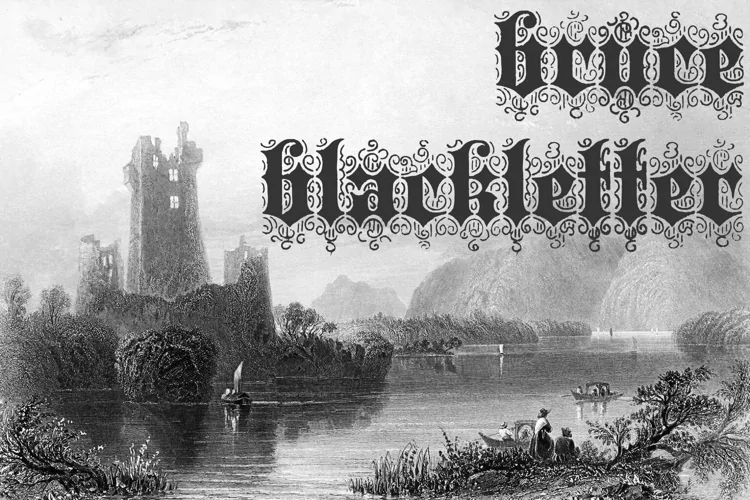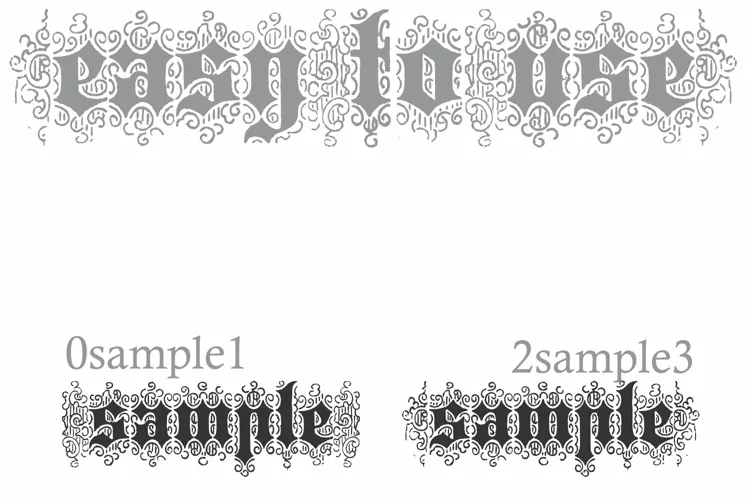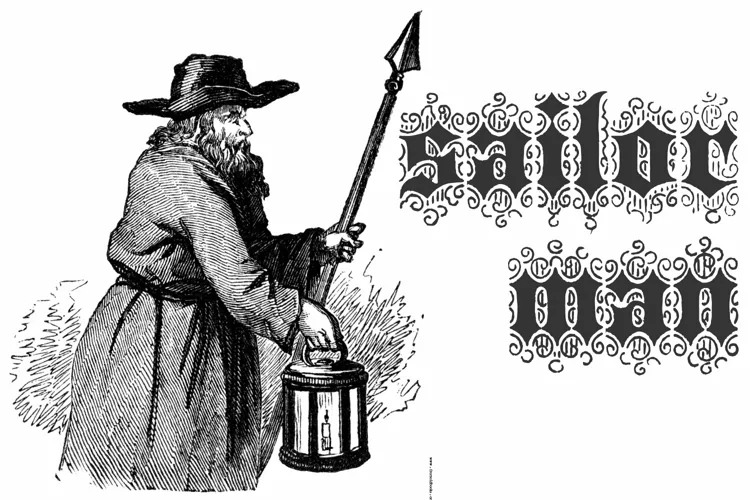
Bruce Font
About Bruce Font
A classic font design remastered by the type foundry Intellecta Design, from the extra-rare Bruce’s New York type foundry from 1882.
Distressed and antique, use this font for display purposes for a stylized type design. Great display face for headers and antique-like projects. Contains a limited amount of letter designs.
Using the “0” and “2” keys you get two different fleurons to start words. Use the “1” or “3” keys to close words with fleurons.